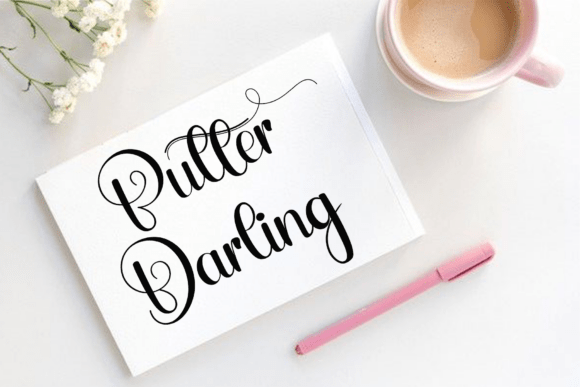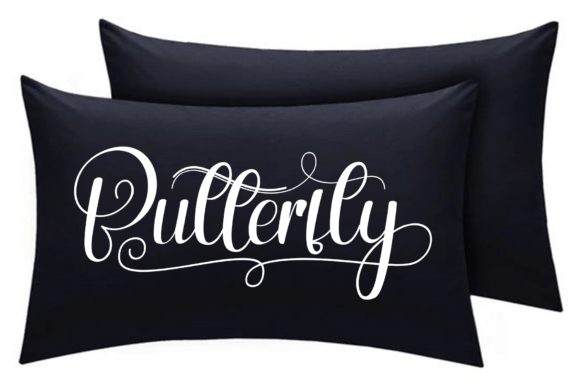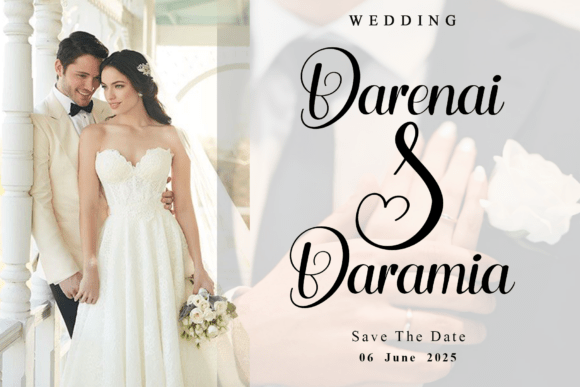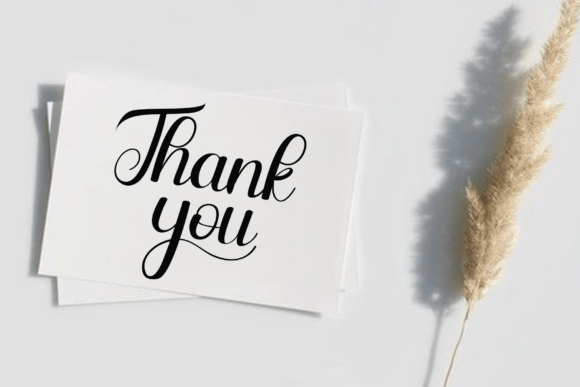
Delighting in the Beauty of Handwritten Text
Who among us hasn’t been captivated by the whimsical charm of handwritten notes or invitations? The soft strokes and gentle curves evoke a sense of warmth and personality that digital fonts often struggle to replicate. It’s moments like these that remind us of the beauty of handwritten text, and the impact it can have on our emotions and perceptions.
For designers looking to add a touch of whimsy to their designs, the Butterflies Font is a perfect solution. This sweet and friendly handwritten font is designed to evoke feelings of fun and relaxation, making it ideal for wedding invitations, cards, and other designs that require a lovely touch. By incorporating the Butterflies Font into your designs, you can create a sense of warmth and personality that will leave a lasting impression on your audience.
Key Features of Butterflies Font
- Font Family: Butterflies is a script font designed to resemble hand-drawn calligraphy, with a whimsical and elegant feel.
- Unique Characteristics: Features a flowing, cursive design with dynamic letter connections, giving it a sense of movement and energy.
Designer Review: Butterflies Font
Butterflies Font is a whimsical, handwritten typeface designed to evoke the feeling of delicate wings and gentle movements. I think it works well in ✨ certain contexts:
- Children’s books and educational materials
- Food and beverage branding (especially for bakeries and cafes)
However, I do think there are some limitations to consider: ⚠️
- The font may be too playful or juvenile for more formal or corporate applications
- The varying line widths and letterforms can make it challenging to read in smaller sizes
- The font’s organic feel may not be suitable for digital displays or high-resolution printing
Overall, I think Butterflies Font is a beautiful and charming addition to any designer’s toolkit. While it may not be the best choice for every project, it’s perfect for those looking to add a touch of whimsy and personality to their designs.
The Butterflies Font is ideal for:
- Wedding invitations
- Party decorations
For optimal results, use the font in conjunction with whimsical graphics and bright colors.